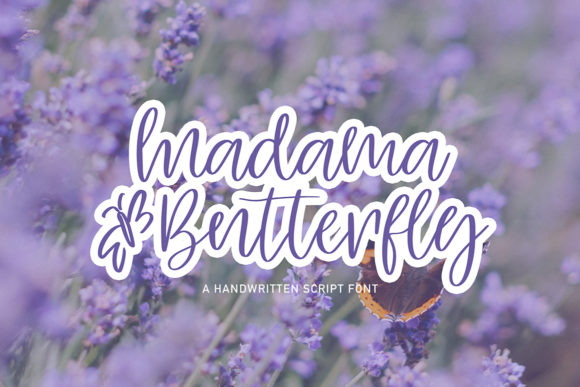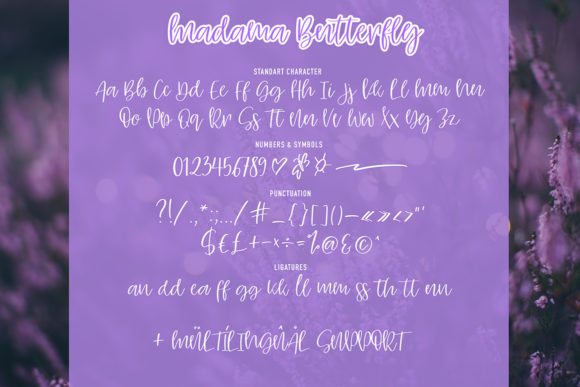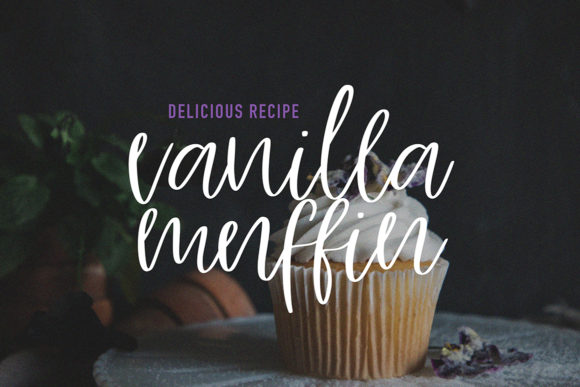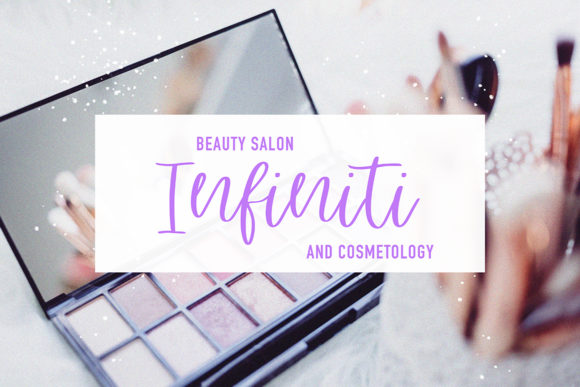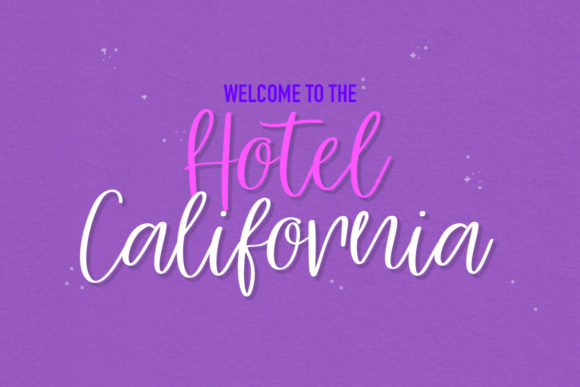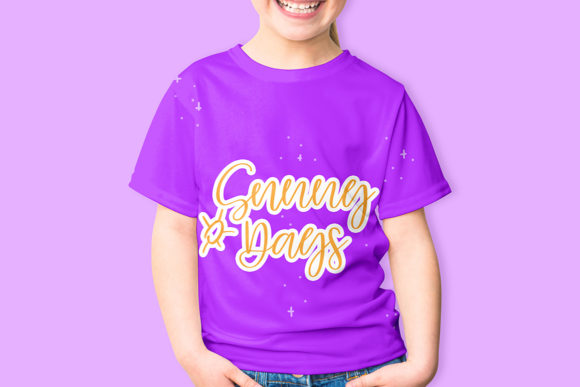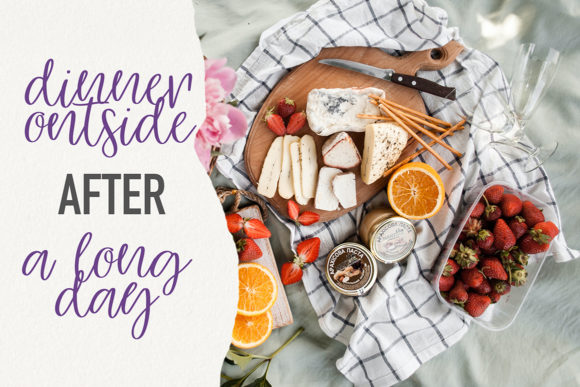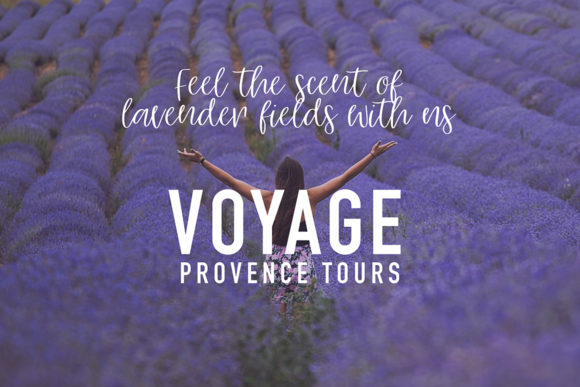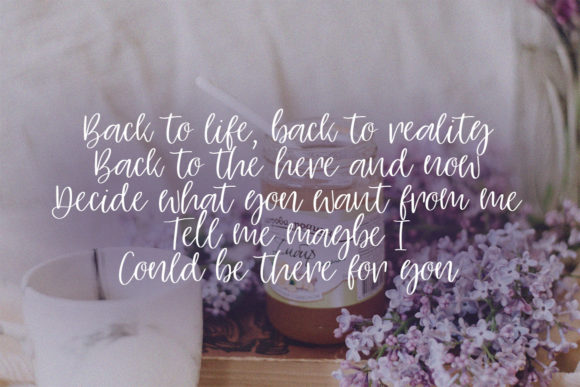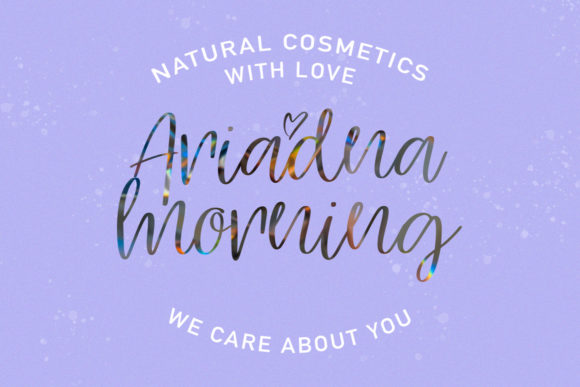
Madama Butterfly Font
About Madama Butterfly Font
Madama Butterfly is a cheerful and friendly handwritten font. It will elevate a wide range of design projects to the highest level, be it branding, headings, wedding designs, invitations, signatures, logos, labels, and much more!